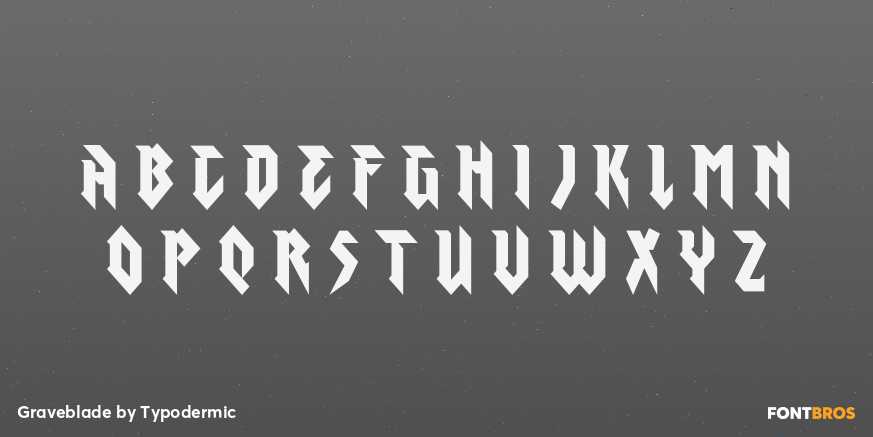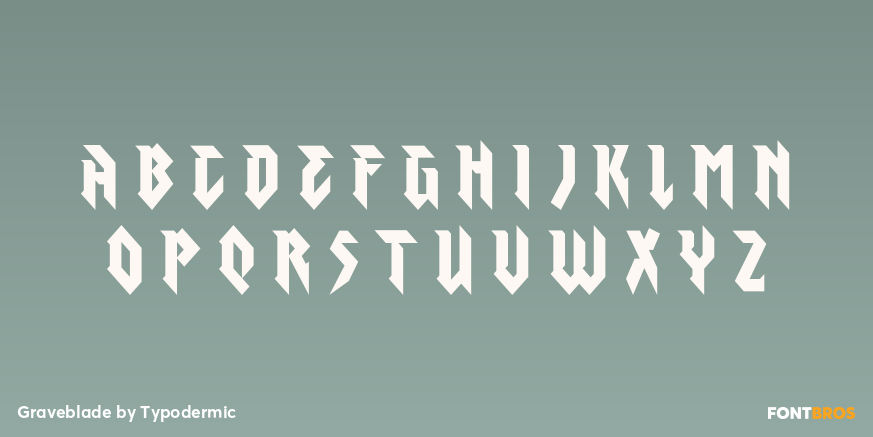
Graveblade
Font Family by Typodermic
Buy NowPrepare to be annihilated by Graveblade, the typeface that doesn’t just push the envelope—it shreds it with a double-necked guitar. It’s a typographic assault on the senses, forged in the fires of heavy metal hell and tempered with the blood of fallen demons.
Graveblade doesn’t ask for attention—it commands it with the force of a thousand Marshall stacks. Each letterform is a weapon, honed to razor-sharpness and ready to slice through the mundane world of everyday typography. Its blackletter roots run deep, but Graveblade has evolved into something far more lethal—a hybrid beast of medieval menace and modern metalhead mayhem. Use Graveblade, and watch as ordinary words transform into battle cries, each character a soldier in your typographic army of darkness.
Graveblade isn’t for the faint of heart or the weak of spirit. From concert posters that bleed intensity to logos that strike fear into the hearts of the uninitiated, Graveblade turns every project into a headbanger’s ball. But don’t think Graveblade is just a one-trick pony skeleton. Its support for a vast array of Latin-based European languages means this harbinger of typographic doom is ready to spread its message of metal across borders and cultures.
In a world drowning in safe, sanitized sans-serifs, Graveblade rises like a phoenix from the ashes of boring typography. It’s more than a font—it’s a revolution, a call to arms for every designer who’s ever wanted to turn their layout up to 11 and rip the knob off. Will you wield the Graveblade and carve your name into the annals of metal history? The pit is open, the amps are humming, and the crowd is waiting.